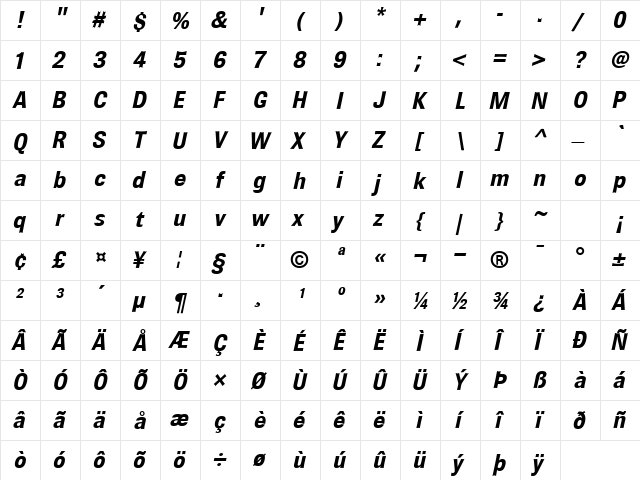
Brown BoldItalic
Design Context for Brown Typeface
Brown offers clean, dependable letterforms without strong stylistic allegiance, making it a practical choice for designers who need flexibility. Its italic angle brings a sense of urgency and motion to the letterforms. The heavy weight commands attention and anchors typographic hierarchies.
Pro Tip: Try Brown for annotation and caption copy alongside an upright companion — the contrast in angle creates a dynamic but ordered typographic system.